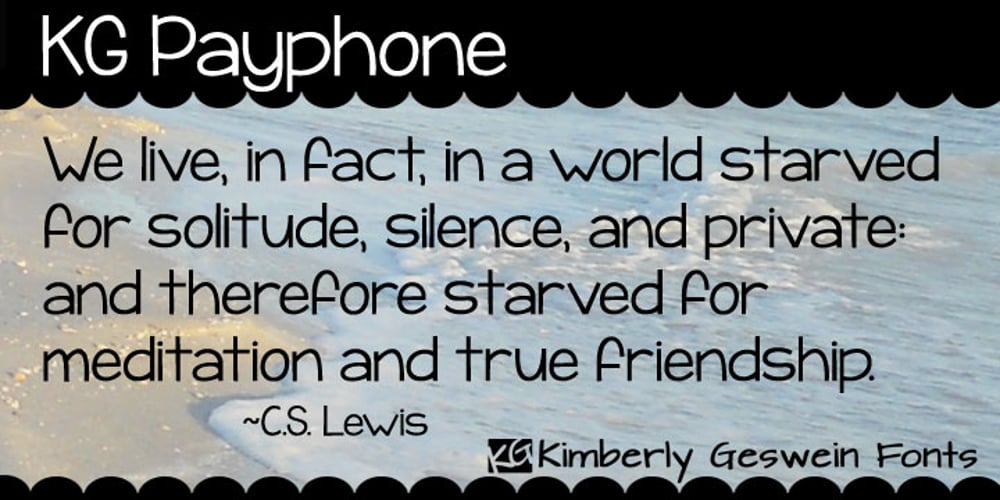
KG Payphone Font Family was designed by Kimberly Geswein and published by Kimberly Geswein. KG Payphone contains 1 styles and family package options. This font was specifically created for my husband. He teaches 5th grade and wanted a font that was legible enough for students to read but still playful enough to add a touch of whimsy to his classroom. Legible enough for body text but fun enough for titles.